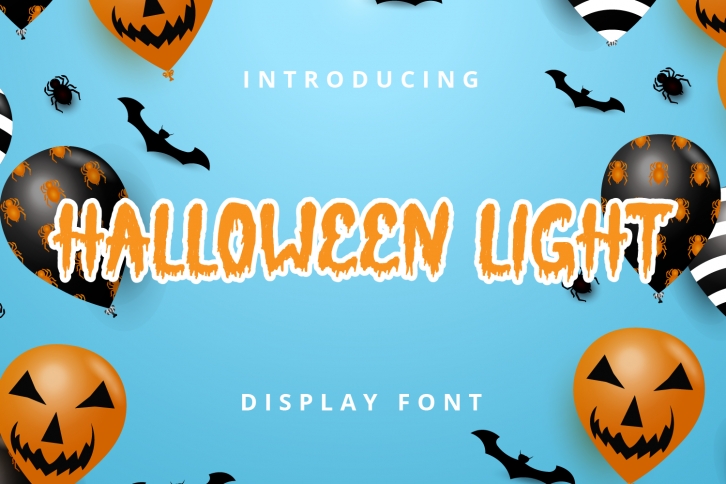
Halloween Light is a bold and incredibly unique display font. Expertly designed to make your creation look out of this world, this font has the potential to take your creative ideas far further.